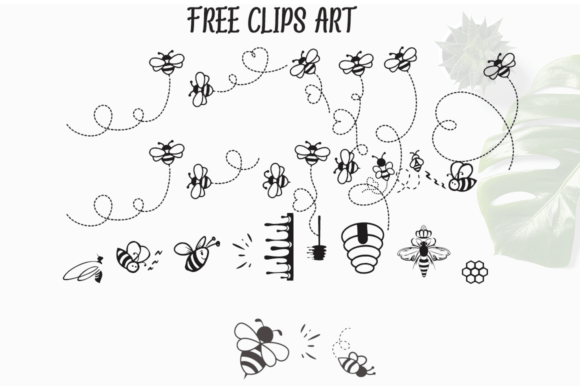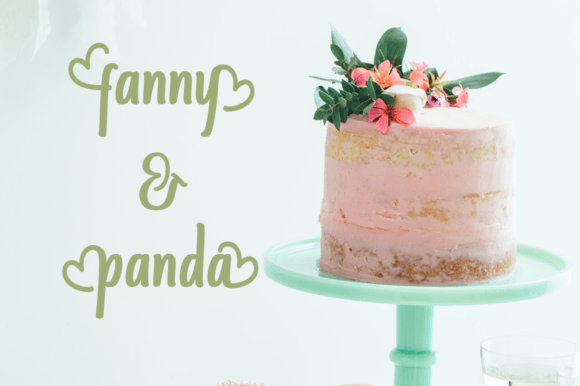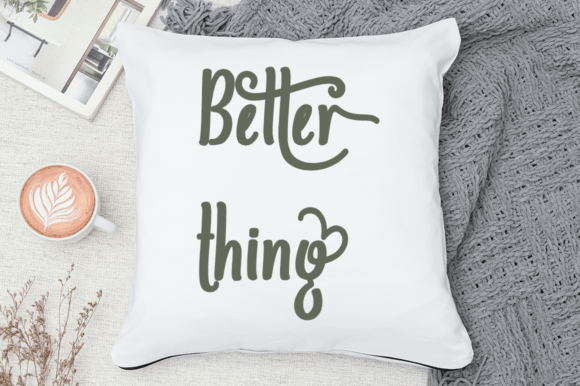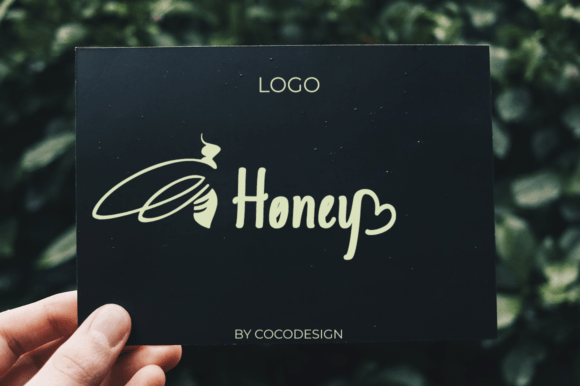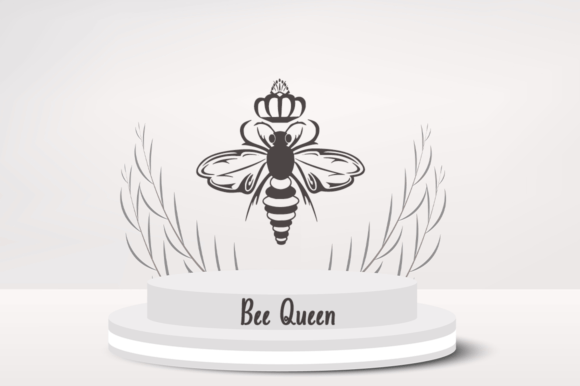
Discover the Sweetness of Bee Kind Font
As a creative, there’s nothing quite like the feeling of getting lost in a project – the colors, the textures, the fonts. You’re in the zone, and nothing can stop you. The ideas are flowing, and your imagination is running wild. That’s exactly where I was when I first laid eyes on the Bee Kind Font. Its friendly, handwritten style had me hooked, and I knew I had to learn more.
Bee Kind Font is a beautiful, versatile font that’s perfect for any project, from digital design and presentations to crafts and greeting cards. With its PUA encoding, you can easily access all of the amazing glyphs and ligatures, making it a valuable tool for designers. Whether you’re a seasoned pro or just starting out, Bee Kind Font is sure to become your new favorite go-to font.
Bee Kind Font Key Features
- Font Family: Bee Kind Font is a unique, hand-drawn sans-serif font designed to promote kindness and positivity.
- Character Count: The font includes a wide range of characters, including uppercase and lowercase letters, numbers, and punctuation marks.
- Unique Characteristics: Bee Kind Font features a distinctive, playful style with rounded edges and a subtle texture, making it perfect for creating eye-catching and memorable designs.
Bee Kind Font Review
At first glance, the Bee Kind Font seemed like a charming addition to any design project. ✨ The font’s unique blend of handwritten and digital elements creates a whimsical feel that’s hard to resist. The subtle imperfections and variations in letterforms add a touch of authenticity, making it perfect for brands that want to appear more approachable and human.
One of the standout features of Bee Kind Font is its versatility. ✨ It works well in a range of applications, from logos and headings to body text and social media graphics. The font’s range of weights and styles also makes it easy to create visual hierarchy and emphasize important information.
However, there are some limitations to consider. ⚠️ For one, the font may not be suitable for projects that require a more formal or corporate tone. Additionally, the font’s imperfections can sometimes make it difficult to read, especially at small font sizes.
- Unique blend of handwritten and digital elements
- Subtle imperfections and variations in letterforms
- Versatile and works well in a range of applications
- Range of weights and styles
Overall, I would give the Bee Kind Font 4 out of 5 stars. While it may not be perfect for every project, it’s a great choice for brands that want to appear more approachable and human. With a little bit of care and attention to font size, the Bee Kind Font can add a touch of magic to any design project.
Use Bee Kind Font to create eye-catching headings and titles. Pair it with a clean sans-serif font for body text to create a visually appealing contrast.
Bee Kind Font is perfect for:
Creating social media graphics and posts.
Designing posters and flyers.
Developing brand identity and logos.
Adding a touch of whimsy and personality to your designs.
What font sizes and styles are available in the Bee Kind Font?
The Bee Kind Font family includes a range of font sizes and styles, from 12 to 72 points, and includes regular, italic, bold, and bold italic styles. This allows for a high degree of customization and flexibility in your design projects.